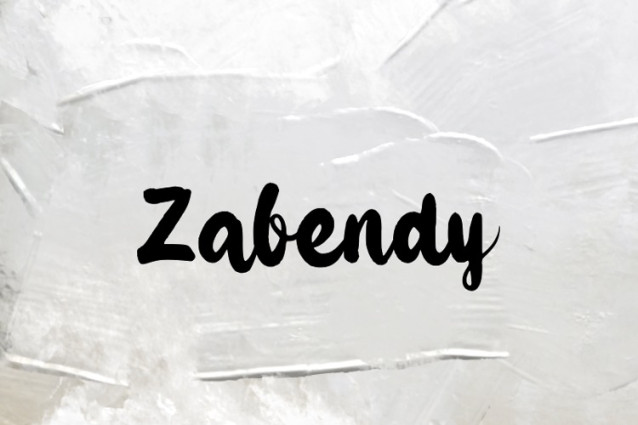
Zabendy Font
Zabendy Font – This is a script font with an elegant style and commercial applications. The letters are connected to each other in a natural way, simulating handwriting, creating a personalized and friendly feeling. Often used in designs that require sophistication, such as invitations, logos, titles, product packaging, or artistic printed products.